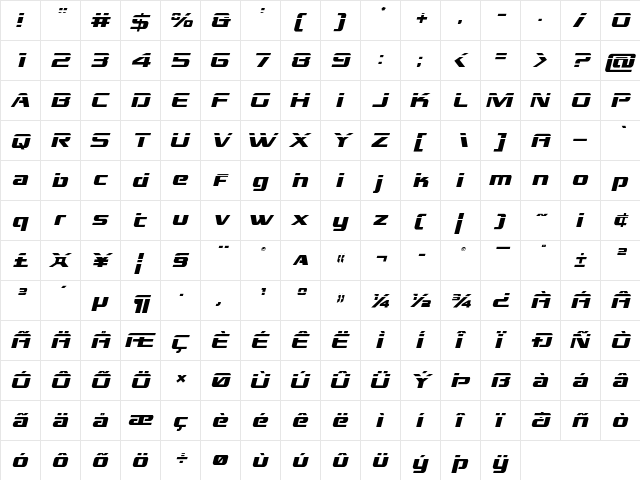
Grand National Laser Italic Italic
Design Context for Grand National Laser Italic Typeface
Grand National Laser Italic is a composed and adaptable typeface that performs quietly and consistently across a wide range of design contexts. The slanted form adds forward momentum and visual energy.
Pro Tip: Use Grand National Laser Italic for emphasis, pull quotes, and subheadings where its slanted energy can add rhythm to the layout.